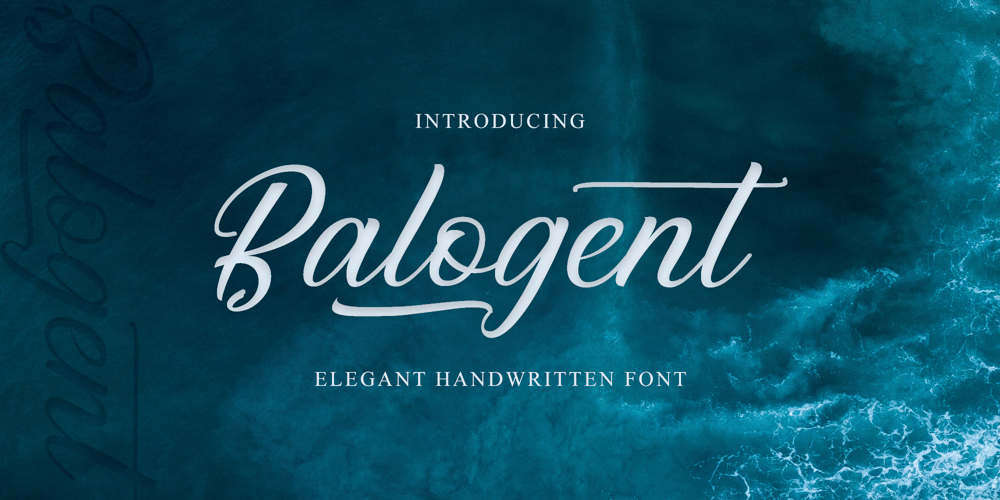
Balogent Font Family was designed by Fajri Yandi and published by Doeltype. Balogent contains 1 styles and family package options. Balogent is a elegant script with a new lovely stylish, a perfection style of the letters you want to use, modern handwriting with many alternatives. Now this is an opentype! It’s smart and in line with your wishes! You are welcome to use it, suitable for various purposes: logo, signatures, corporate symbol, wedding invitation, title, creative, t-shirt, business card, letterhead, nameplate, headings, label, poster, news, badge, letterhead, cutting, hot stamping, quotation, etc. Thanks !